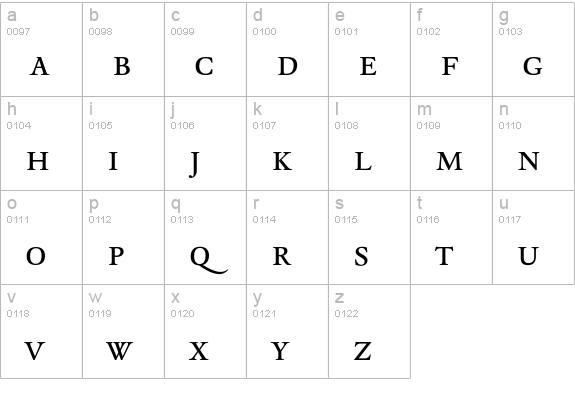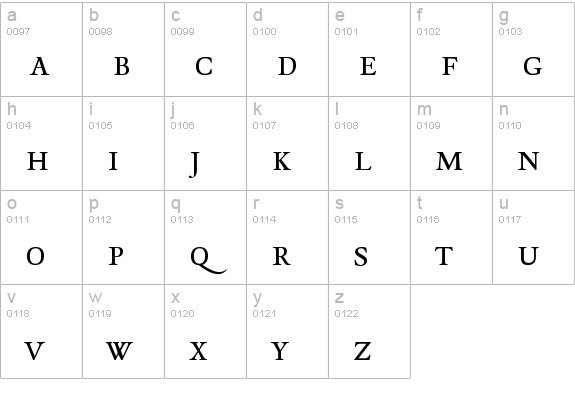
The DTLElzevirTCaps font is a versatile and elegant typeface that exudes sophistication and style. With its timeless appeal and classic design, this font is perfect for a wide range of projects, from branding to editorial design. The clean lines and sharp serifs of DTLElzevirTCaps make it a standout choice for creating impactful headlines and titles. The best part about DTLElzevirTCaps font is that it is completely free to download at FontsMarket.com. This means that you can easily access this beautiful font and use it in your projects without any cost. Whether you are a designer looking to elevate your work or a business owner in need of a professional typeface, DTLElzevirTCaps is sure to impress with its sleek and sophisticated aesthetic. Download DTLElzevirTCaps font today from FontsMarket.com and add a touch of elegance to your designs with this stunning typeface.